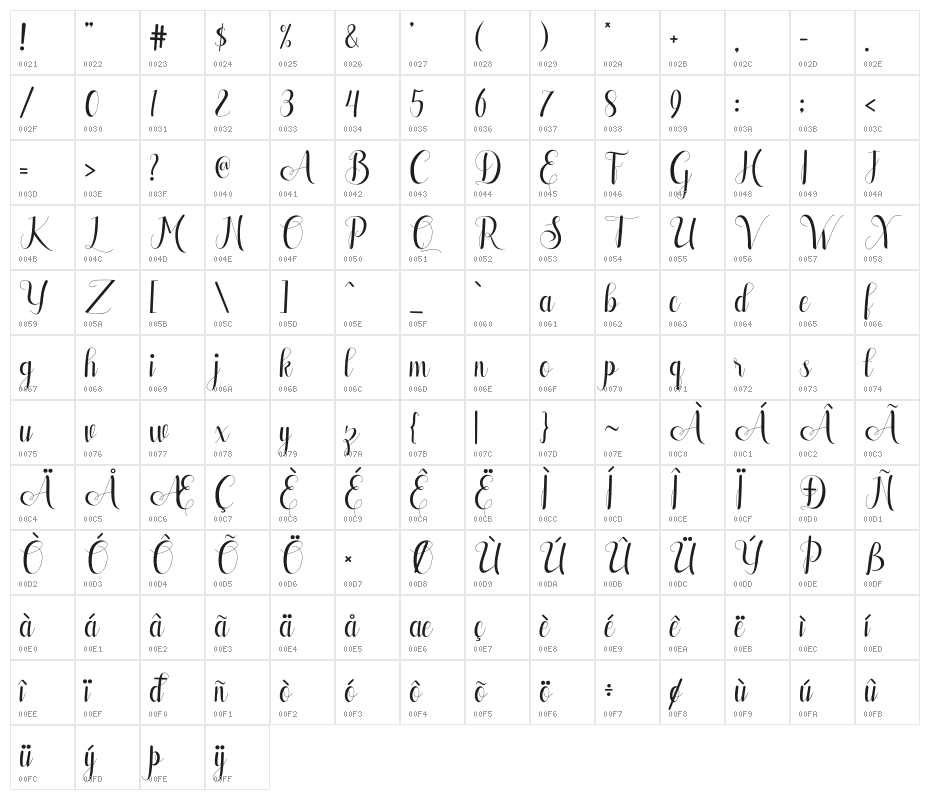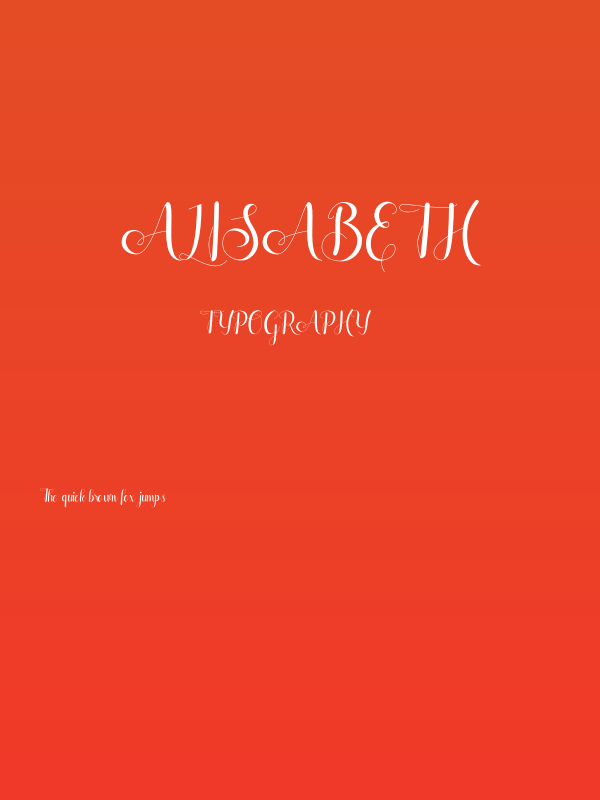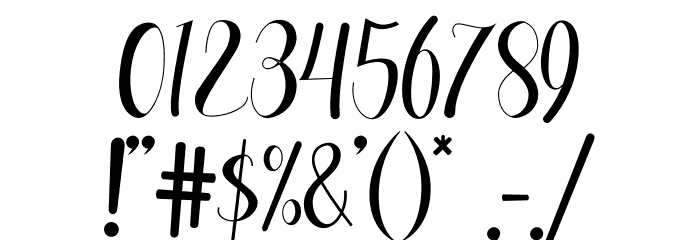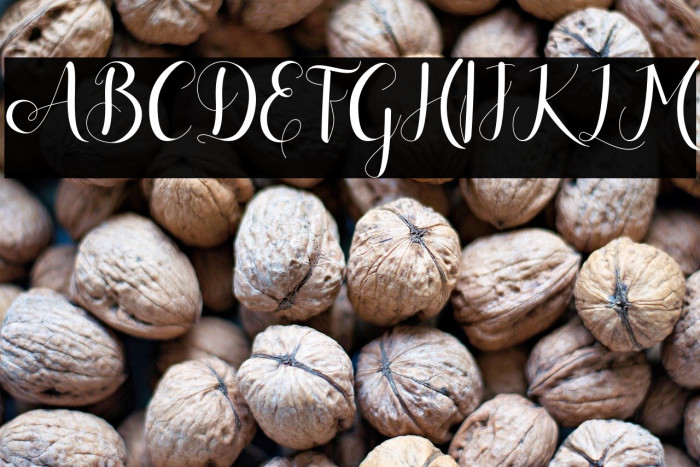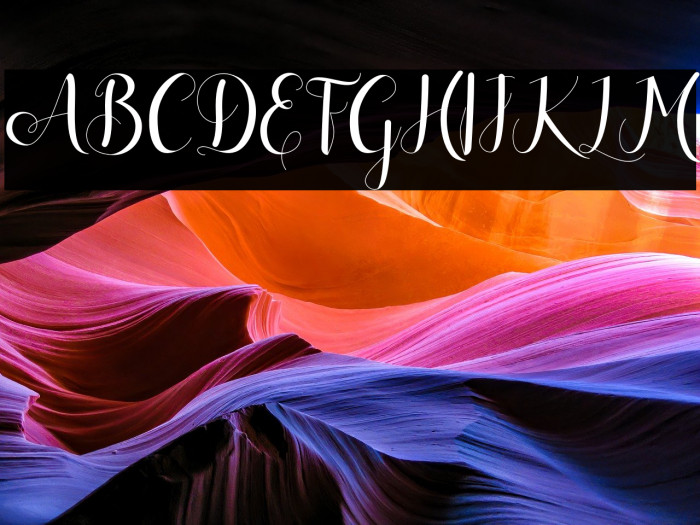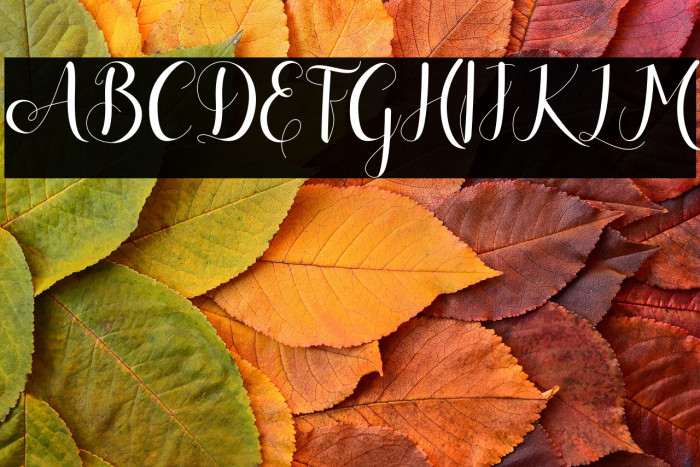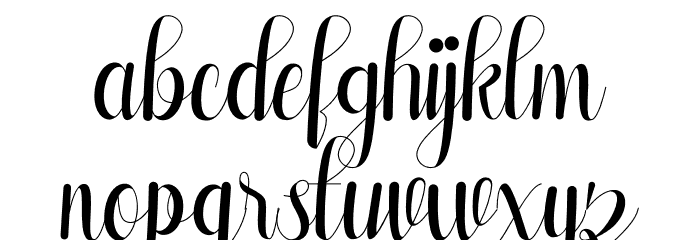
Alisabeth Font
Alisabeth Description
This font features an elegant and flowing script style, characterized by its intricate swirls and loops. The uppercase letters are particularly ornate, with extended flourishes that give a sense of sophistication and grace. The lowercase letters maintain a consistent style, with smooth curves and a slightly condensed form. Numbers and special characters are designed to match the overall aesthetic, ensuring a cohesive look across all text. The font's delicate lines and artistic flair make it ideal for decorative purposes.
| Use Case | Headlines, Invitations, Decorative text |
| Proposed Projects | Ideal for wedding invitations, elegant branding, greeting cards, and decorative headlines. |